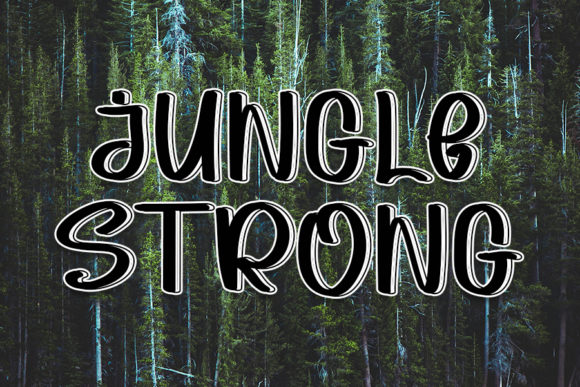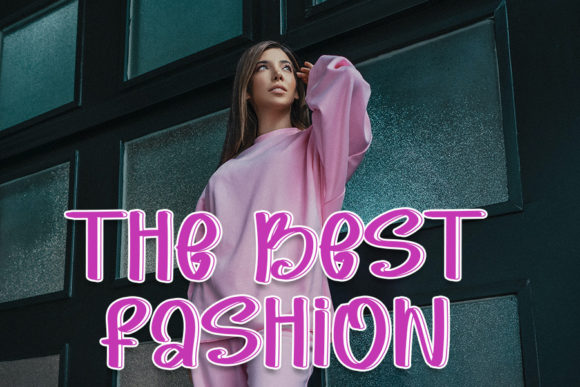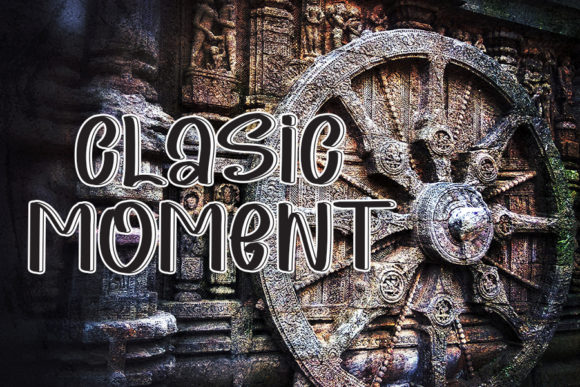
Introduction to Journey Moment Font
Journey Moment is s fun, bold and quirky display font.
It is ideal for a wide variety of designs, but specifically for those creations that need a friendly touch .
Key Features of Journey Moment Font
Why Choose Journey Moment Font?